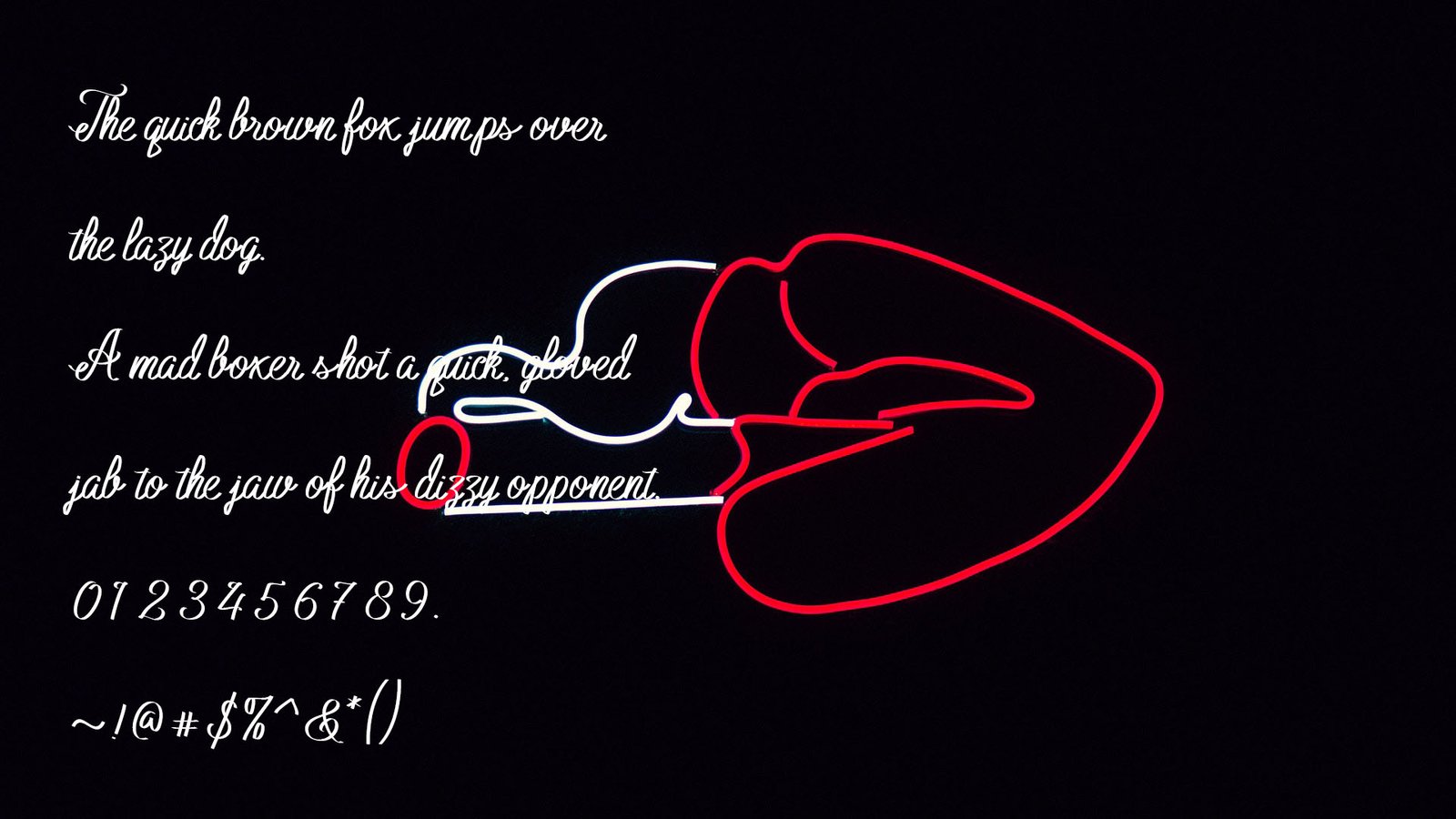
Welcome here, now we are sharing with you the best typeface. The name of this typeface is Cinderella Font. It belongs to the Script Font family.
This outstanding typeface was designed by Vaiminit. It was developed by NissaStudio. This font comes with more than 400 glyphs. It contains all characters of the alphabet.
| Name | Cinderella Font |
| Designer | Vaiminit |